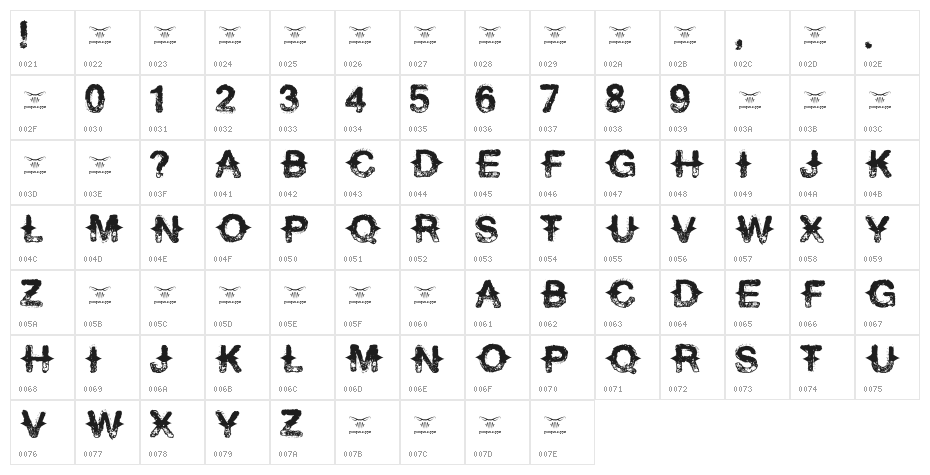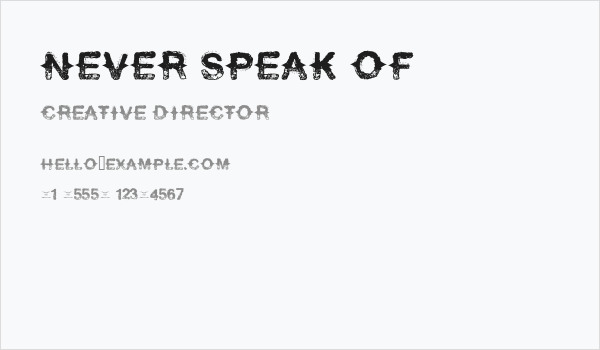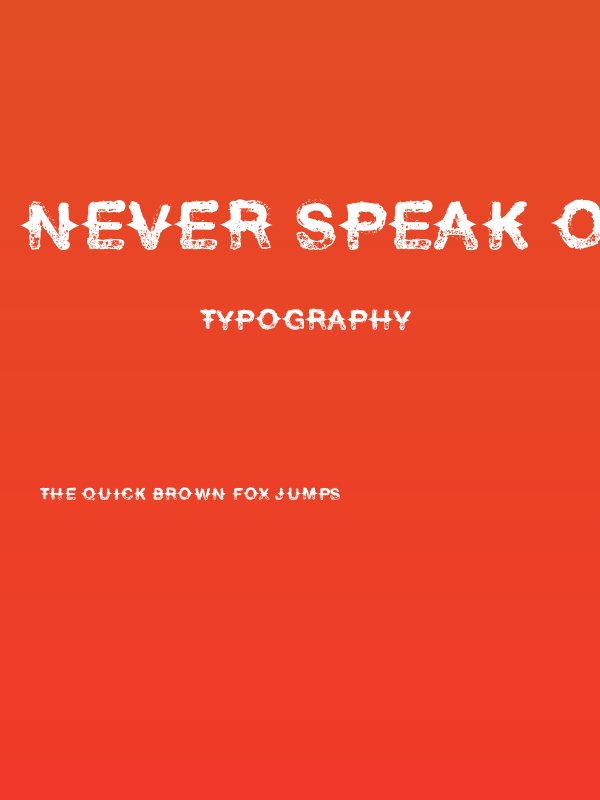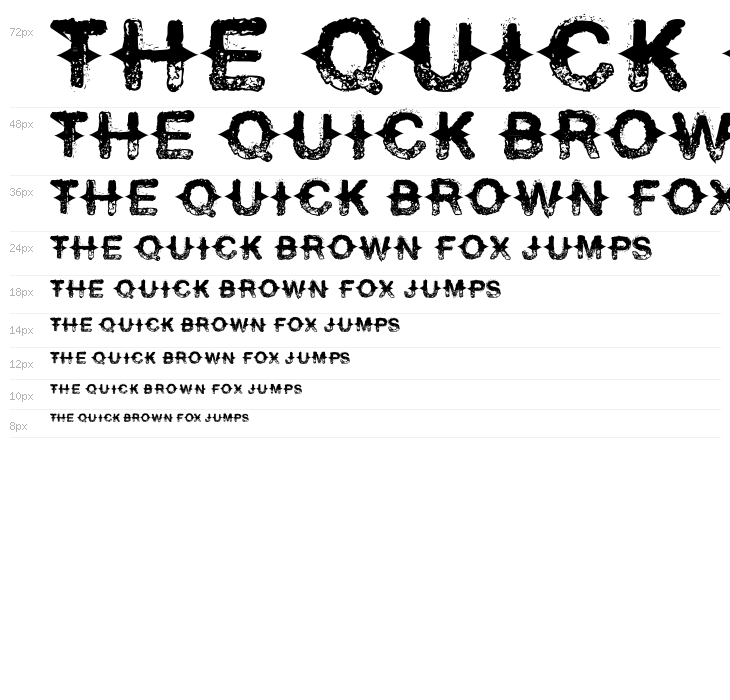
Never Speak Of Font
Never Speak Of Description
This font features a distressed, grunge style with a rough, textured appearance. The characters are bold and have an uneven, weathered look, giving them a unique and edgy feel. The uppercase and lowercase letters maintain a consistent style, with irregular edges and a slightly chaotic design. The numerals and special characters follow the same aesthetic, adding to the overall cohesive appearance. This font is perfect for projects that require a raw, urban, or vintage vibe, making it suitable for posters, album covers, or any creative work that seeks to convey a sense of rebellion or nonconformity.
| Overall Style | Grunge, Urban, Vintage |
| Proposed Projects | Ideal for posters, album covers, urban-themed designs, and creative projects needing an edgy look. |